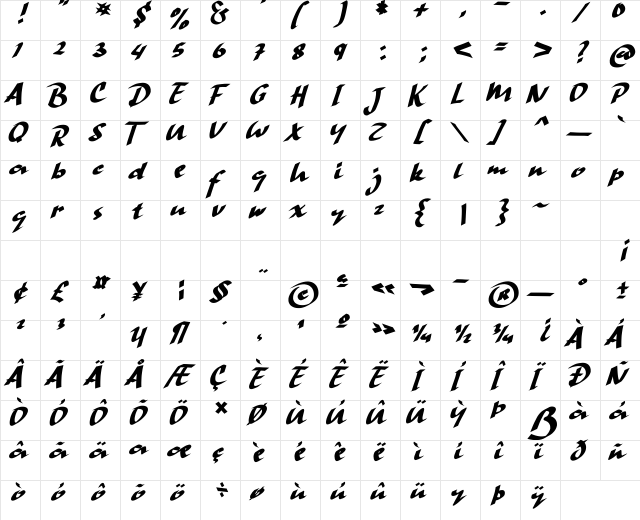
Hand Strike Regular
Design Context for Hand Strike Typeface
Hand Strike flows with the natural rhythm of handwritten lettering, making it ideal for designs that call for warmth and personal expression.
Font Pairing: Combine Hand Strike with a simple geometric sans for maximum contrast — the tension between flowing curves and clean structure is a classic typographic pairing.
Pro Tip: Use Hand Strike for short runs of text — names, titles, or taglines. Extended body copy in script faces tires the eye quickly.